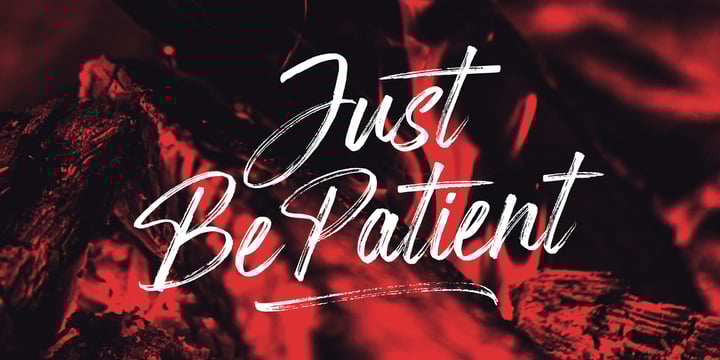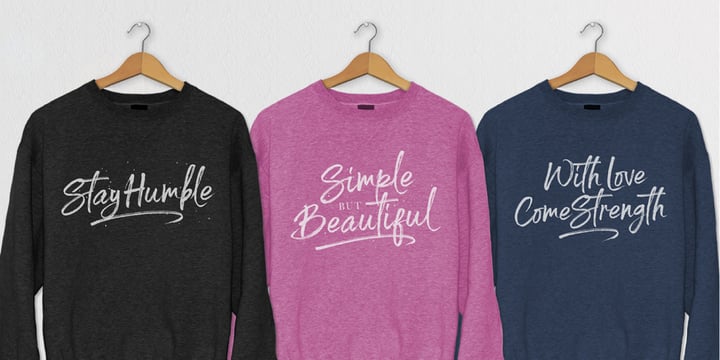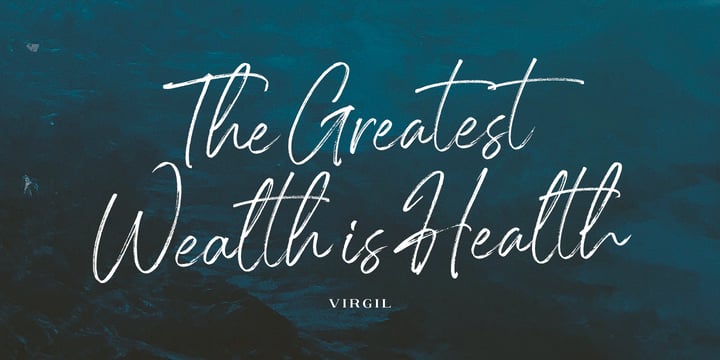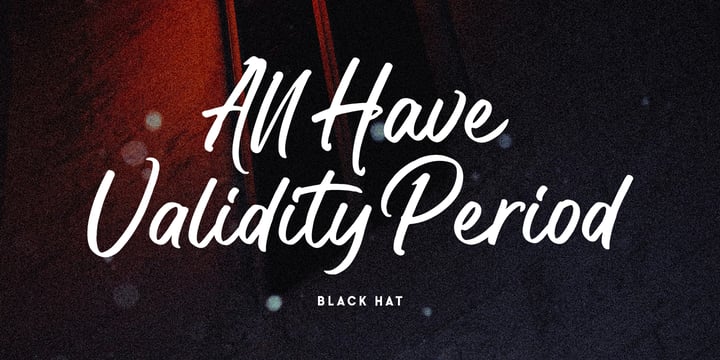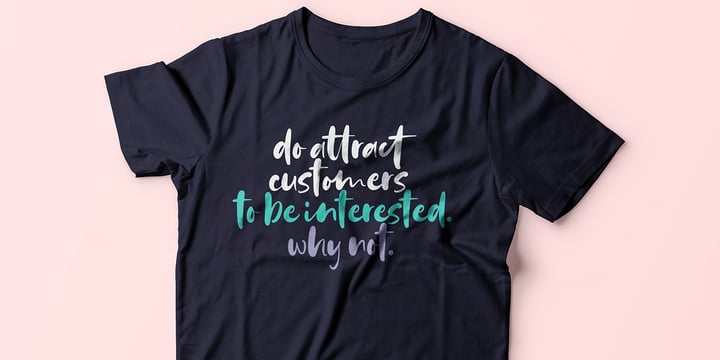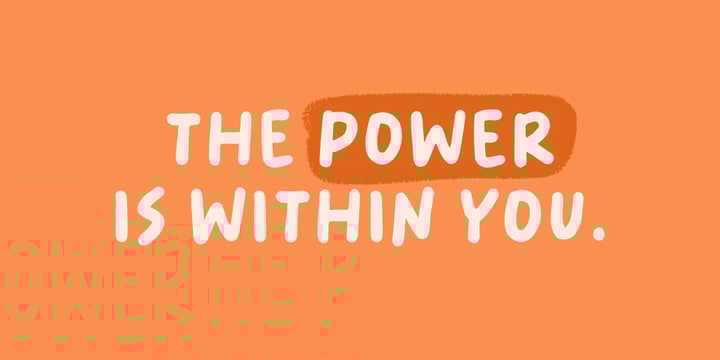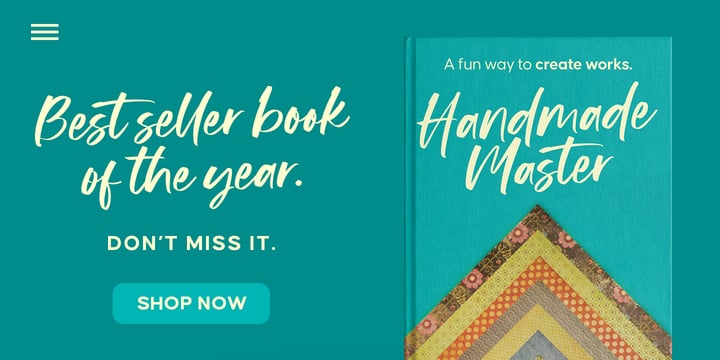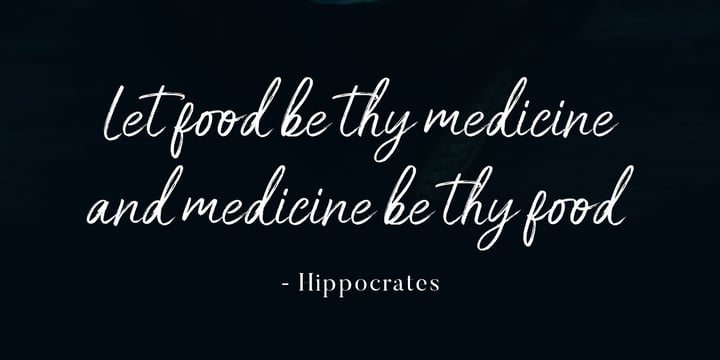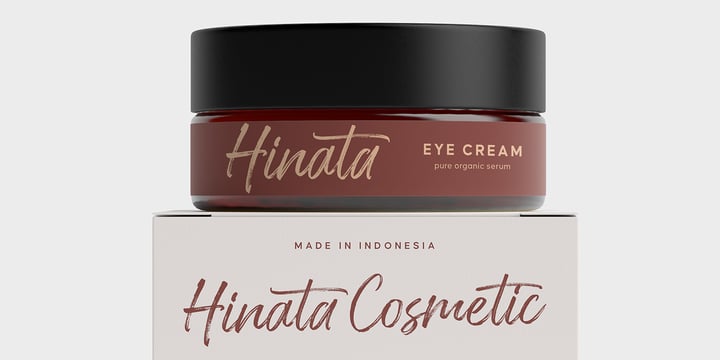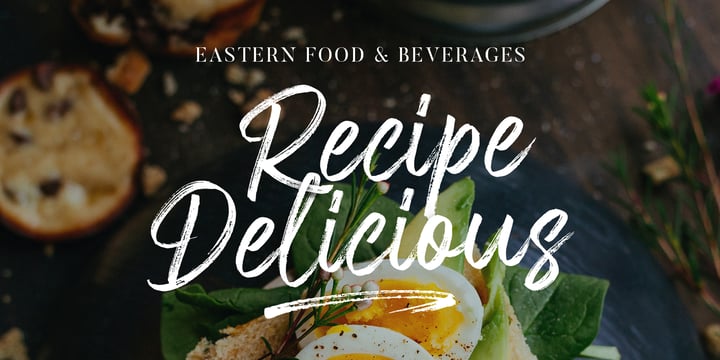
Trustha Handwritten Font Bundle
We present a Handwritten Font Bundle. In one package at an affordable price. You will get 39 fonts in 16 typefaces. This bundle contains handwritten fonts that match all creative projects!